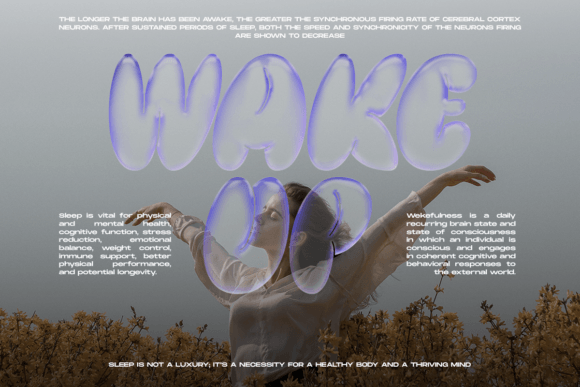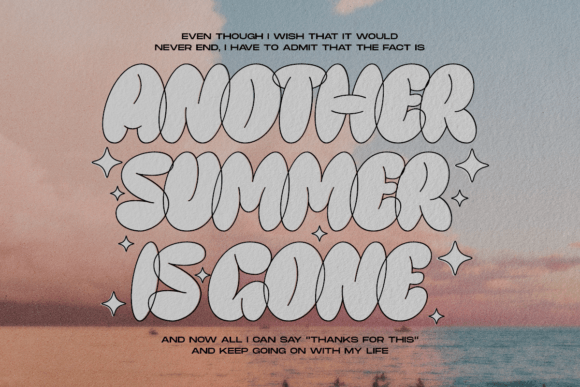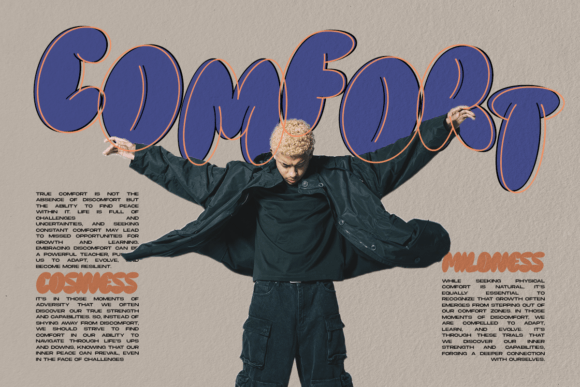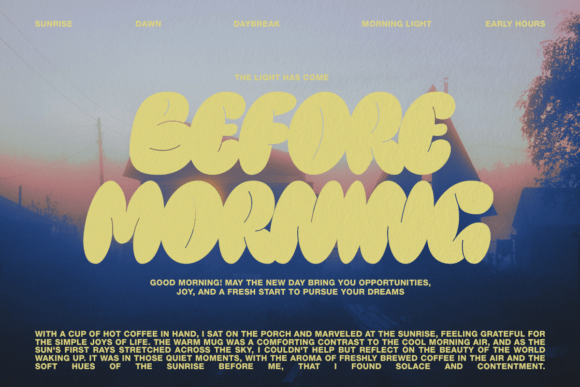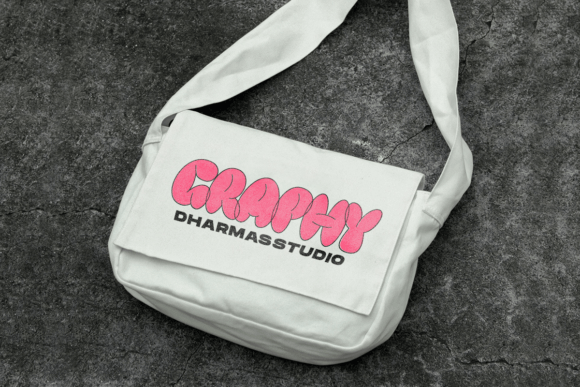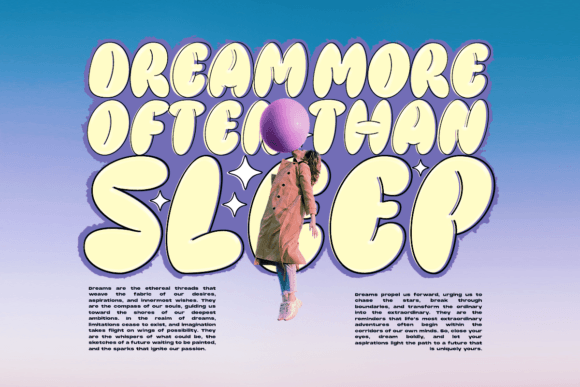
Introducing Graphy Font: The Ultimate Fusion of Street Art and Y2K Culture
In the world of typography, fonts play a crucial role in conveying the tone and personality of a brand or design. For designers and crafters looking to add an urban, contemporary edge to their work, Graphy Font is the perfect solution. This unique bubble font fuses the energetic spirit of street art and the trendsetting vibes of Y2K culture, making it a standout in the world of typography.
Inspired by Graffiti and Street Art
Graphy Font draws inspiration from the vibrant and dynamic world of graffiti and street art. The font’s design is infused with the modern layout and edgy feel of street art, giving it a fresh and youthful appearance. The unique bubble font style is reminiscent of the bold and colorful murals that adorn city walls, adding a touch of urban grit to any design.
Three Distinct Styles to Choose From
One of the standout features of Graphy Font is its versatility. The font comes in three distinct styles: Filled, Anti Counter, and Outline. Each style offers a unique take on the Graphy Font, allowing designers and crafters to experiment with different looks and feels. Whether you’re working on logos, branding, or social media graphics, Graphy Font has a style to suit your needs.
Filled Style: Bold and Vibrant
The Filled style is the most straightforward of the three, with a bold and vibrant appearance that’s perfect for making a statement. This style is ideal for designs that require a strong, eye-catching font, such as logos, posters, and flyers.
Anti Counter Style: A Modern Twist
The Anti Counter style offers a modern twist on the traditional bubble font. With its sleek and refined appearance, this style is perfect for designs that require a touch of sophistication, such as branding, packaging, and advertising.
Outline Style: A Delicate Touch
The Outline style is a delicate and elegant take on the Graphy Font. With its subtle outline and refined appearance, this style is ideal for designs that require a touch of subtlety, such as social media graphics, blog posts, and digital media.
Graphy Font is the perfect tool for designers and crafters looking to add an urban, contemporary edge to their work. The font’s unique blend of street art and Y2K culture makes it a standout in the world of typography, and its versatility ensures that it can be used in a wide range of applications.
Key Features of Graphy Font
- Unique bubble font style inspired by graffiti and street art
- Three distinct styles: Filled, Anti Counter, and Outline
- Perfect for logos, branding, social media graphics, and more
- Urban, contemporary edge that’s sure to make your designs stand out
- Modern layout and edgy feel